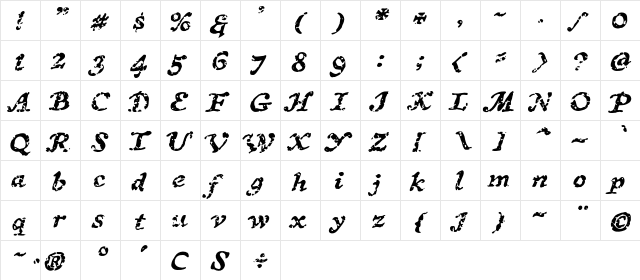
CCTreasureTroveDecayed Italic
Design Context for CCTreasureTroveDecayed Typeface
CCTreasureTroveDecayed wears its vintage influences proudly, with letterforms that recall mid-century signage, classic packaging, and nostalgia-driven design. The dynamic lean of this cut emphasises speed and emphasis in any layout.
Ideal for diner signage, record shop branding, 70s/80s-themed projects, and heritage product labels.
Font Pairing: Combine CCTreasureTroveDecayed with a simple slab or neutral sans — period-accurate companions reinforce the vintage feel without competing for attention.
Pro Tip: Lean into CCTreasureTroveDecayed's period character by pairing it with aged paper textures, muted colour palettes, and vintage illustration styles.